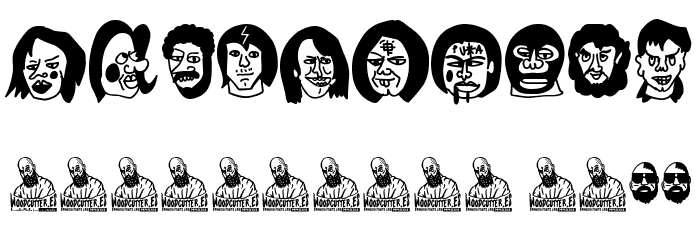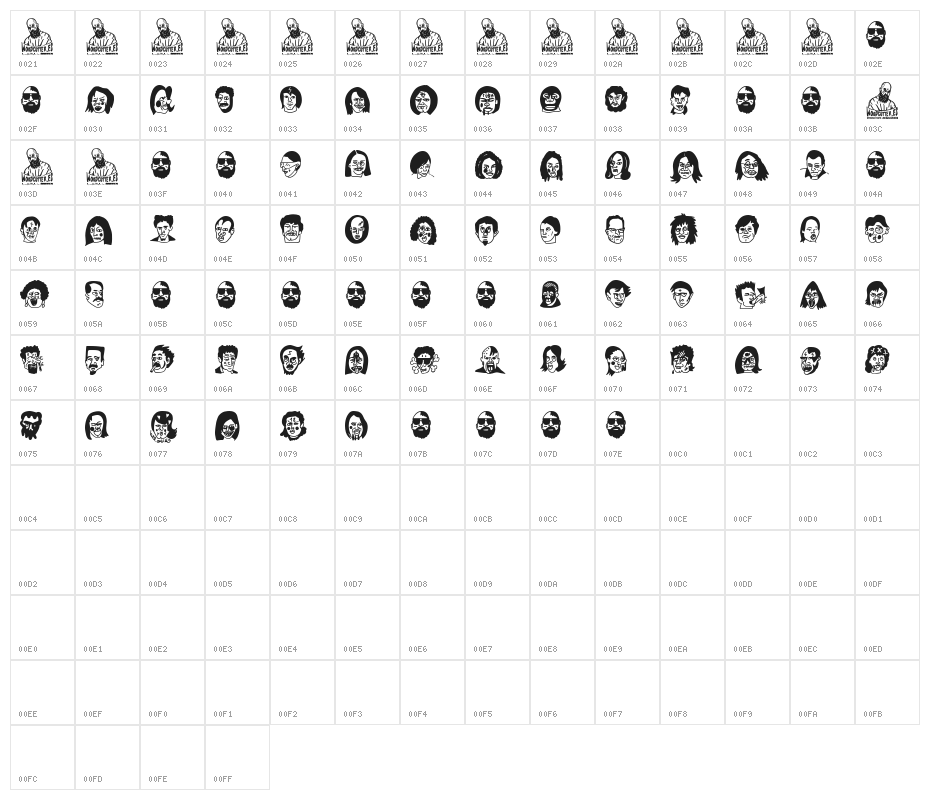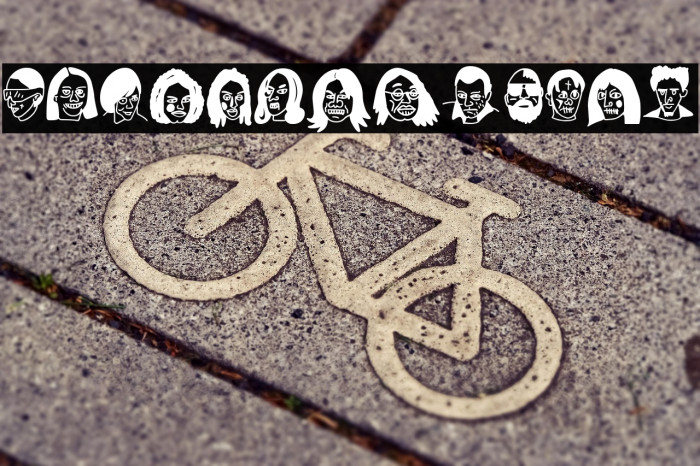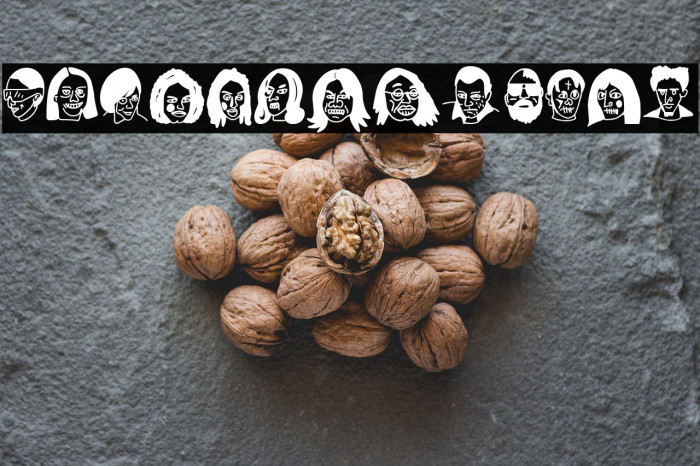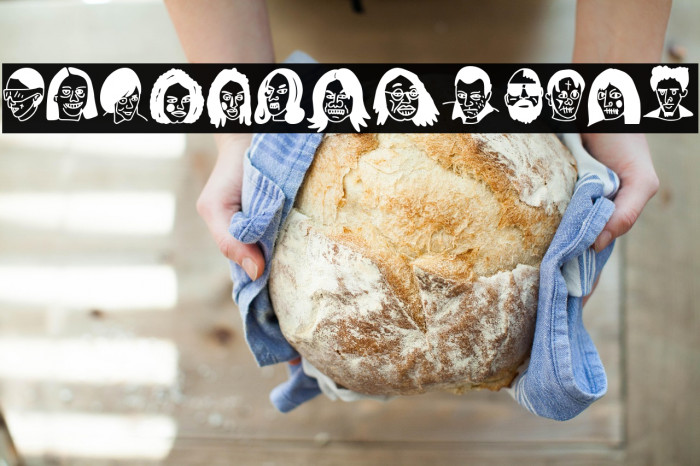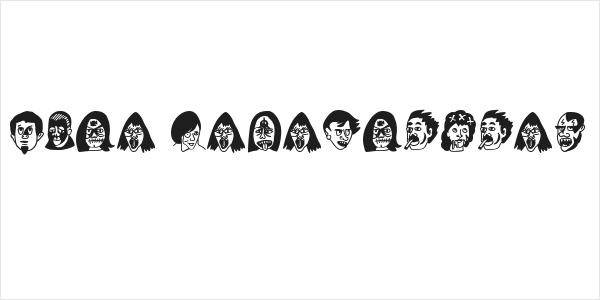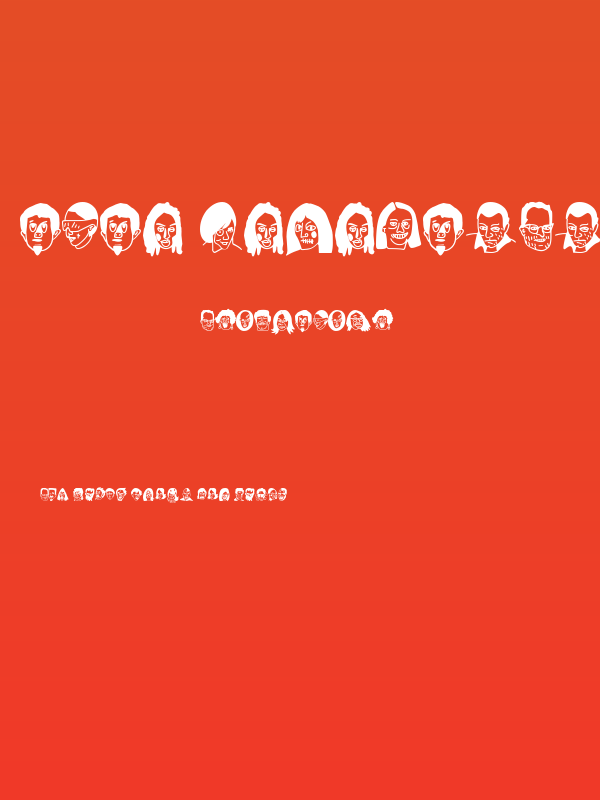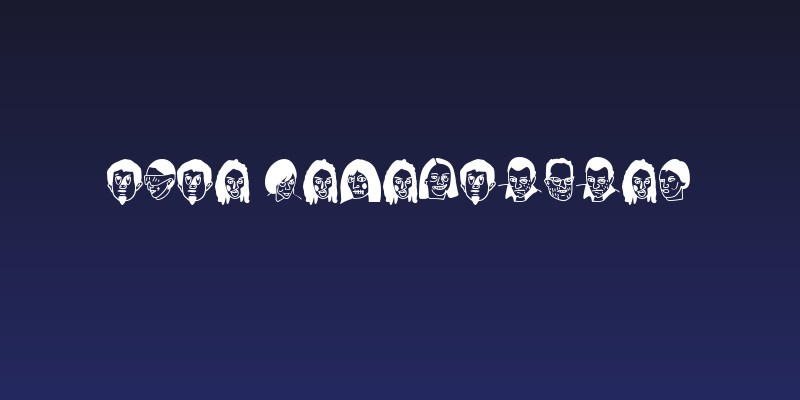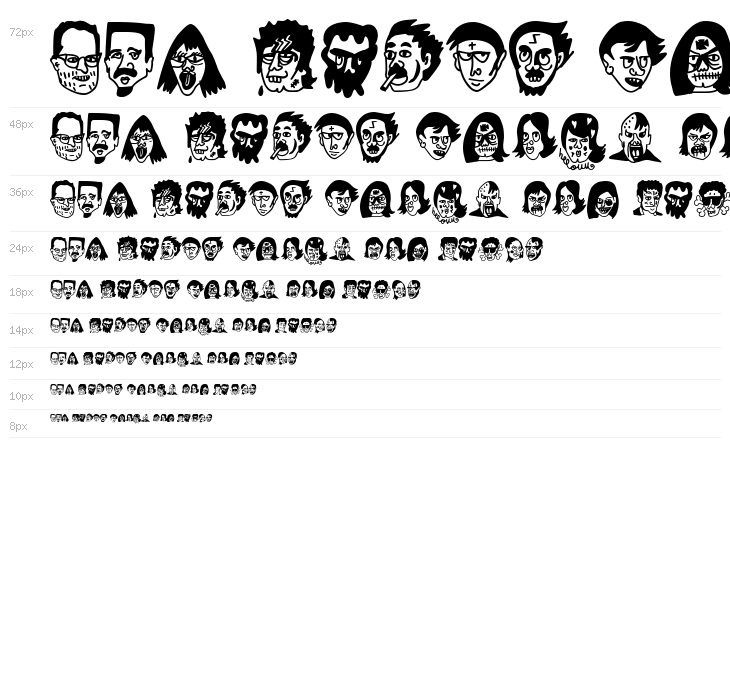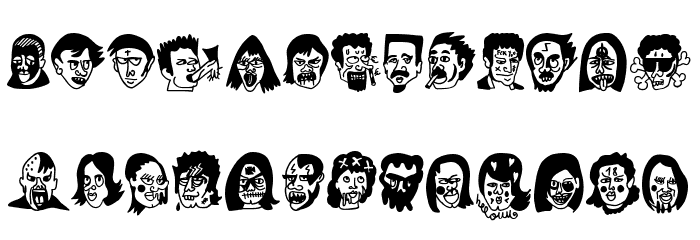
Rare Celebrities Font
Rare Celebrities Description
A highly stylized decorative font where each character is represented by a unique, hand-drawn caricature of a face, featuring exaggerated and expressive features. The style is playful, bold, and cartoonish, with heavy black outlines and varying facial expressions.
| Overall Style | Decorative, Playful, Cartoonish |
| Use Case | Logos, Headlines, Posters, Themed events |
| Proposed Projects | Posters, album covers, party invitations, comic books, novelty branding, event flyers. |